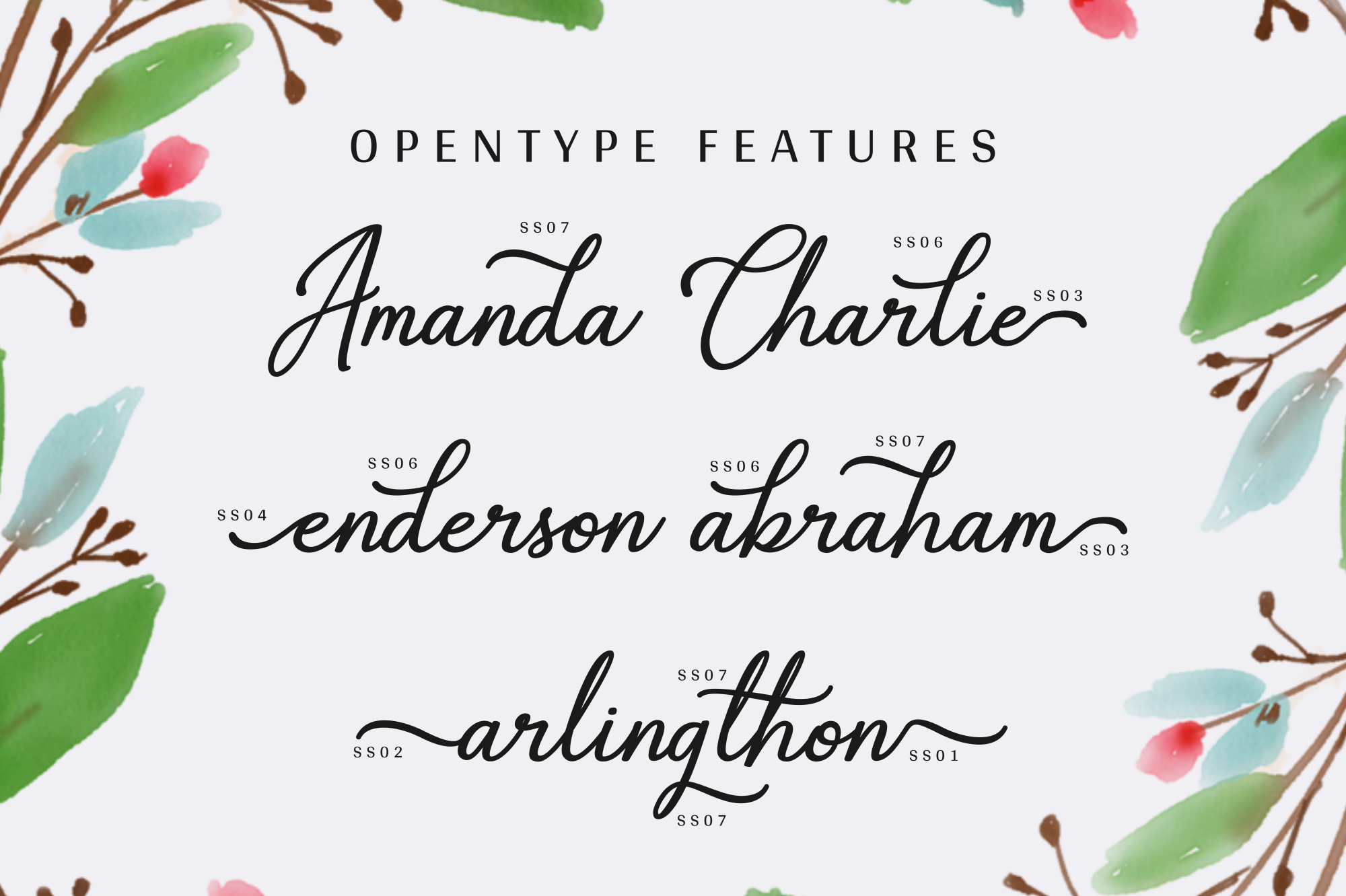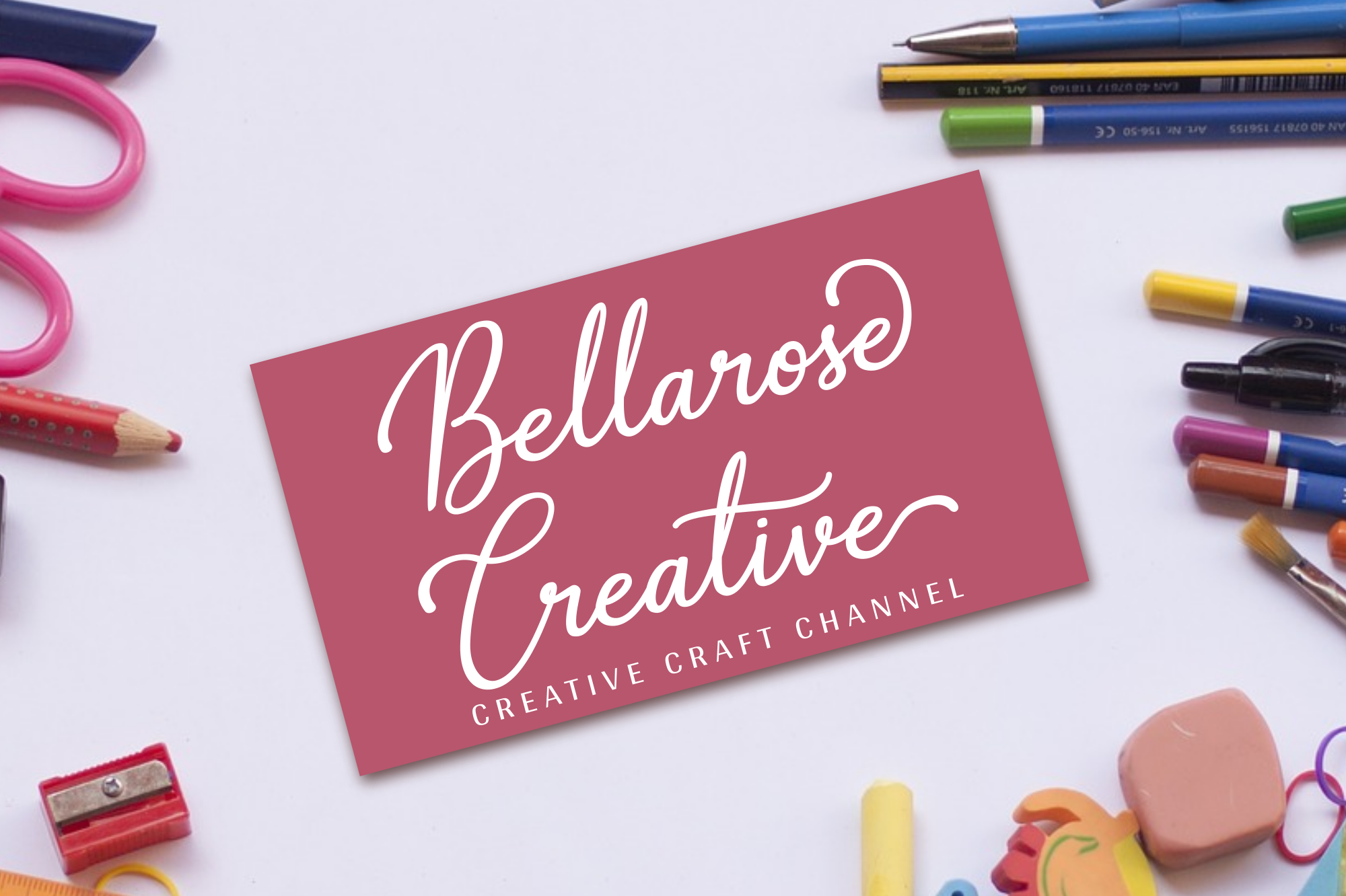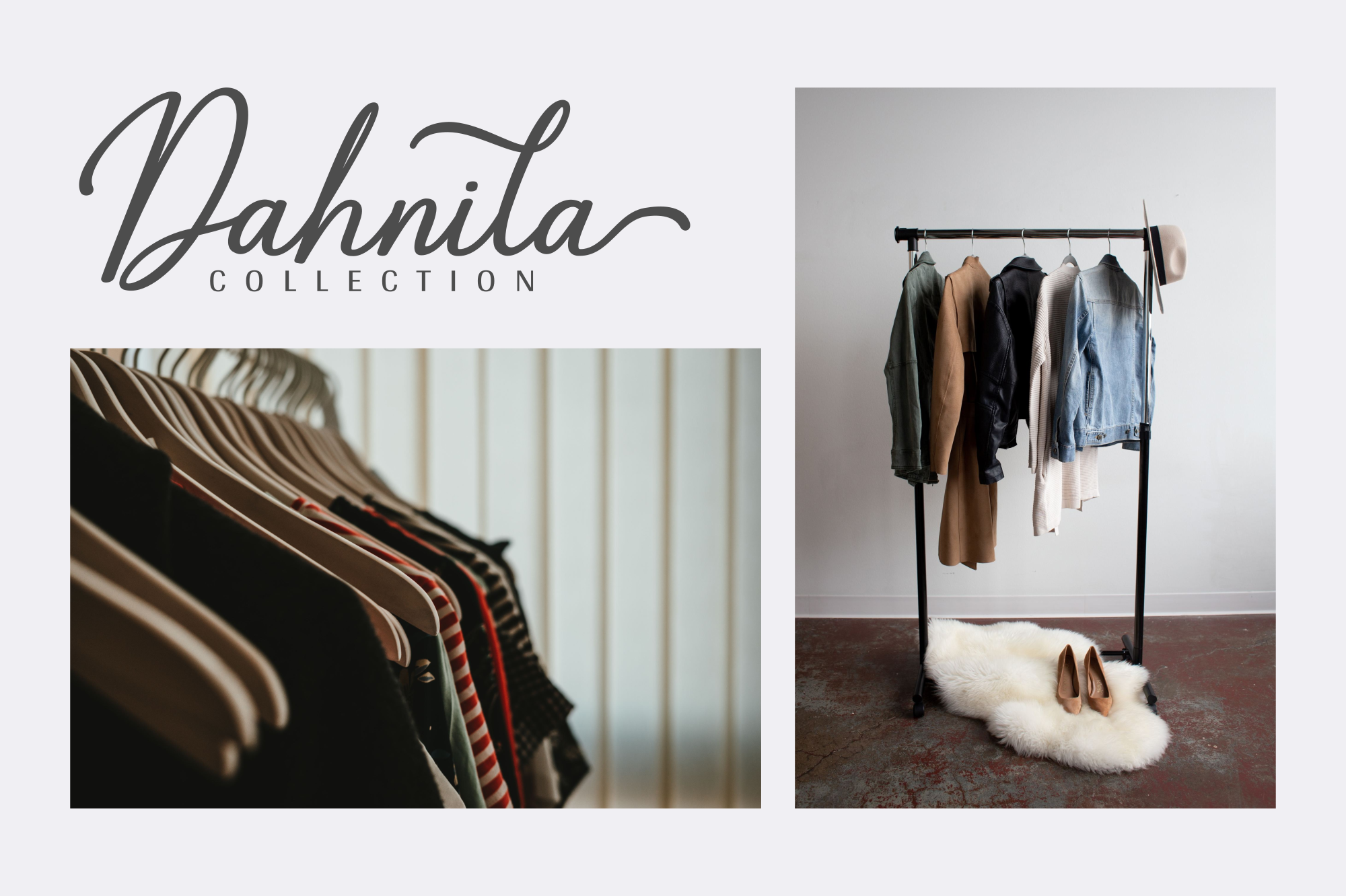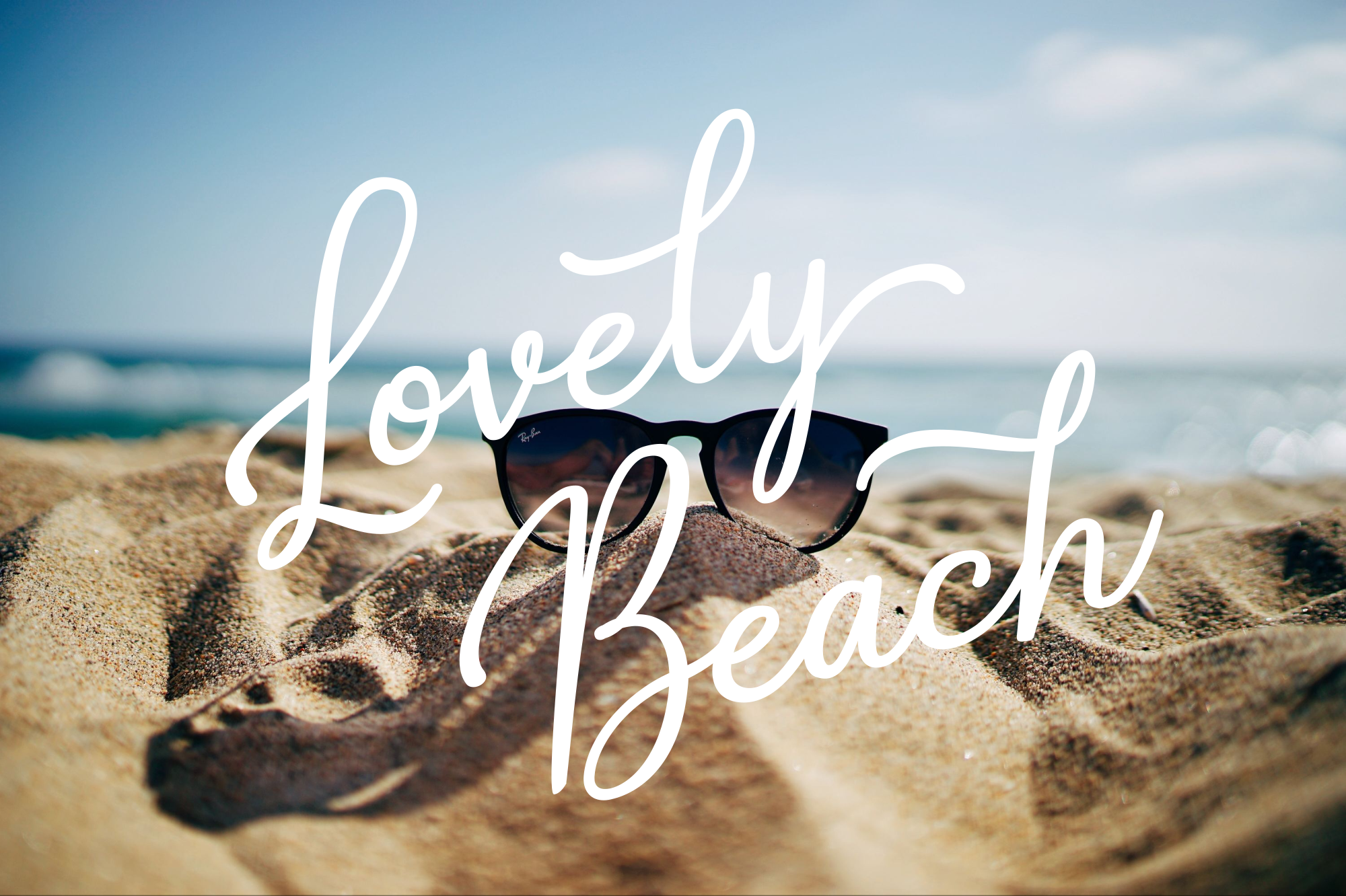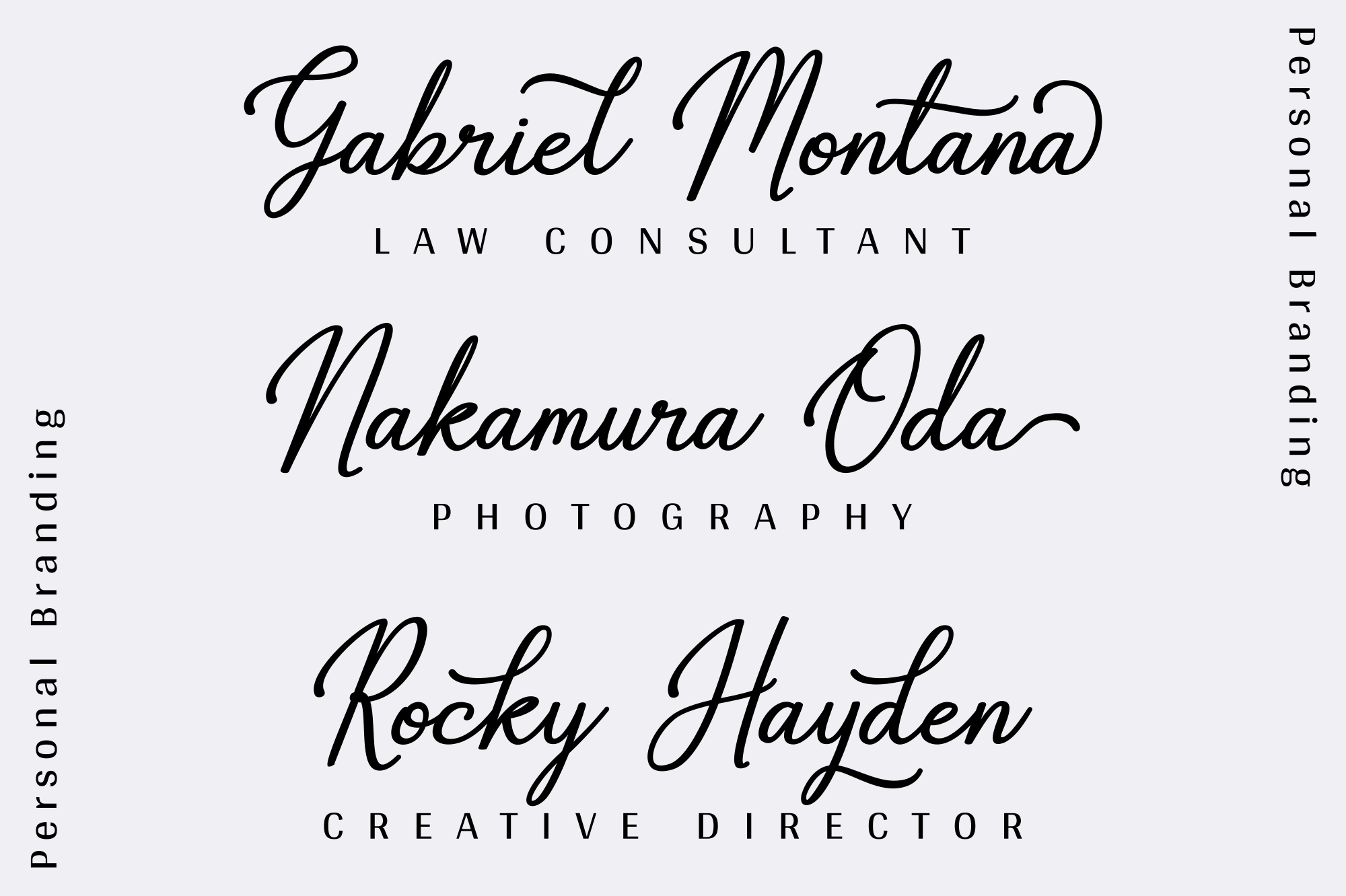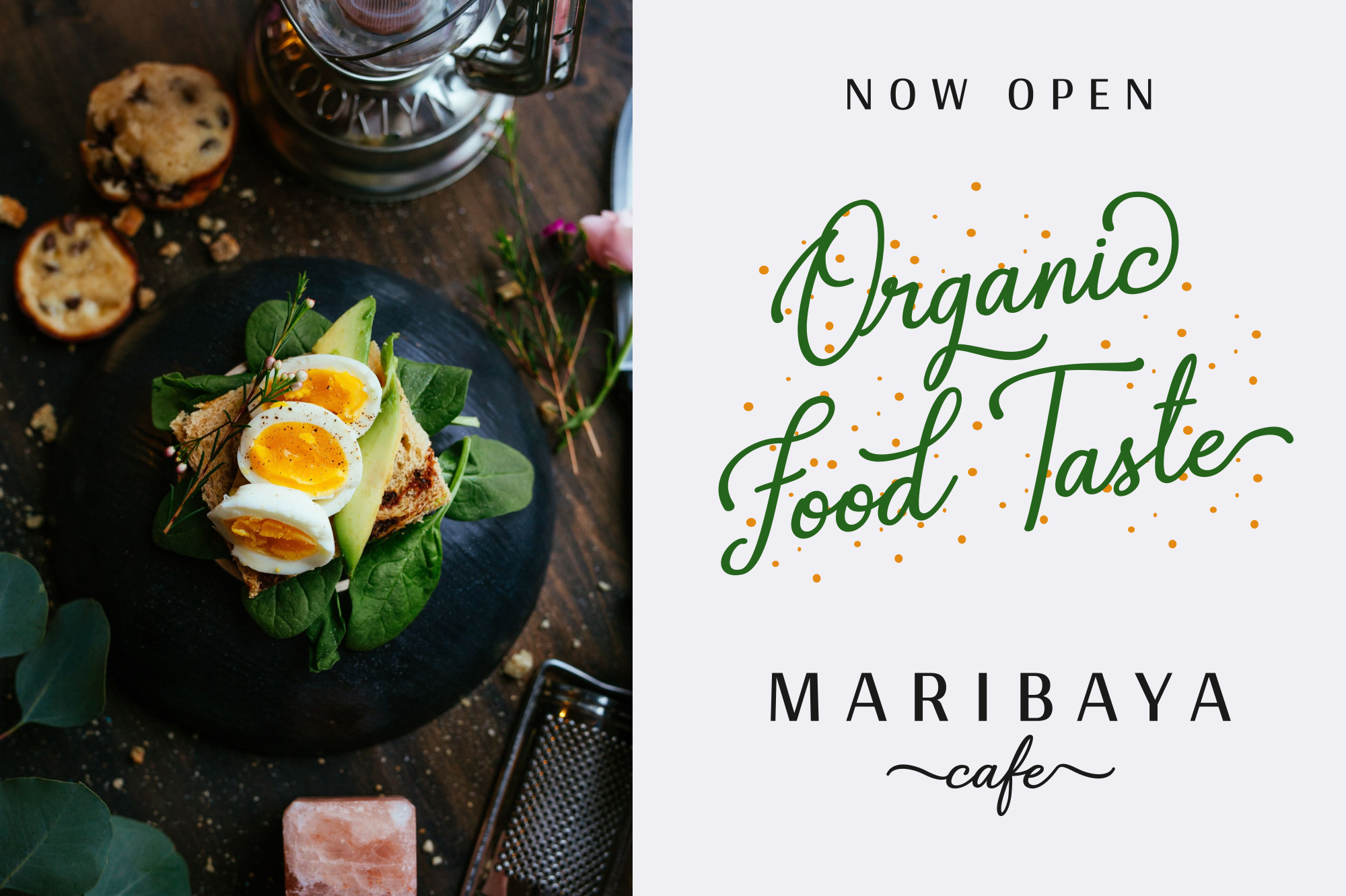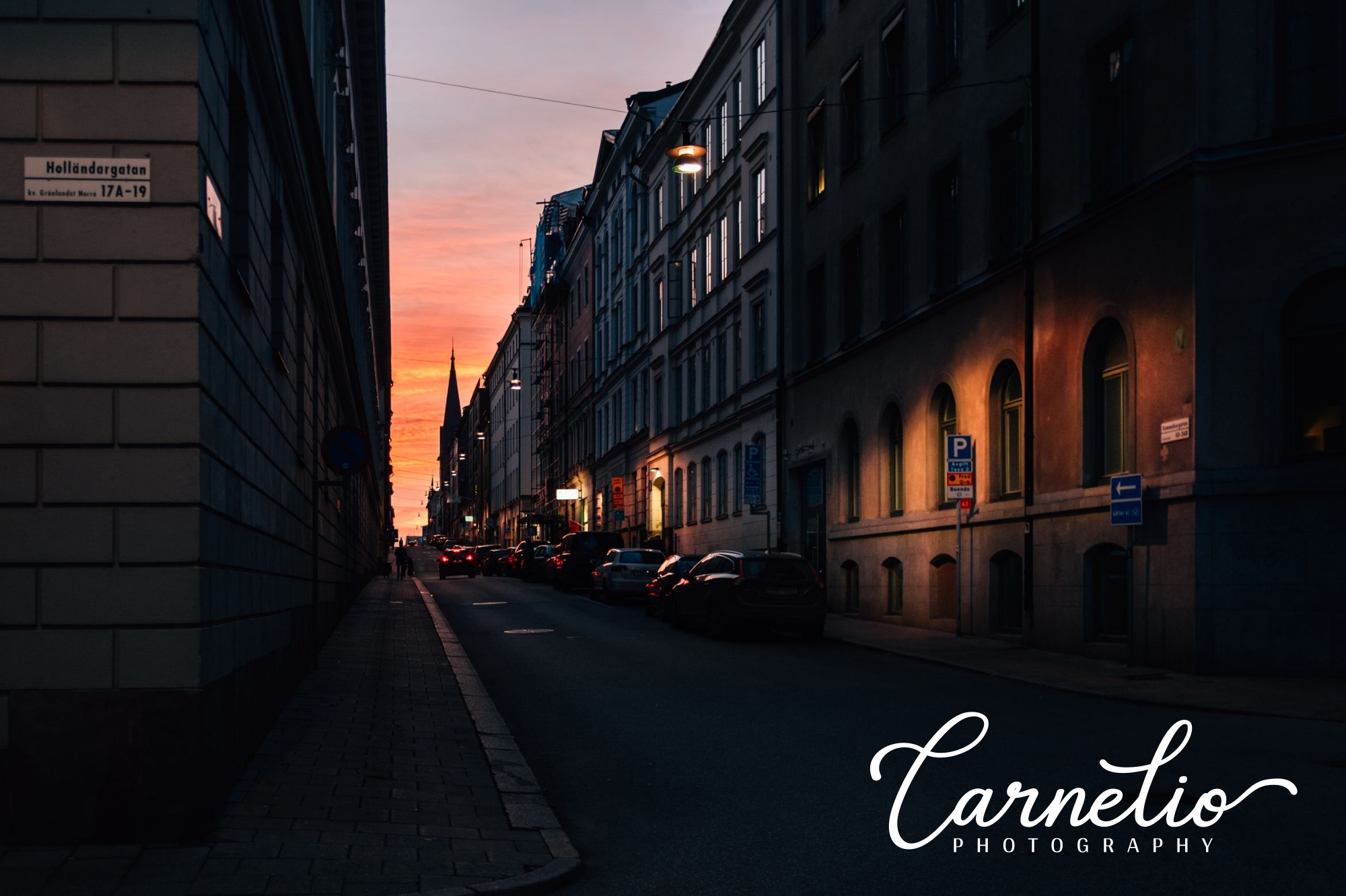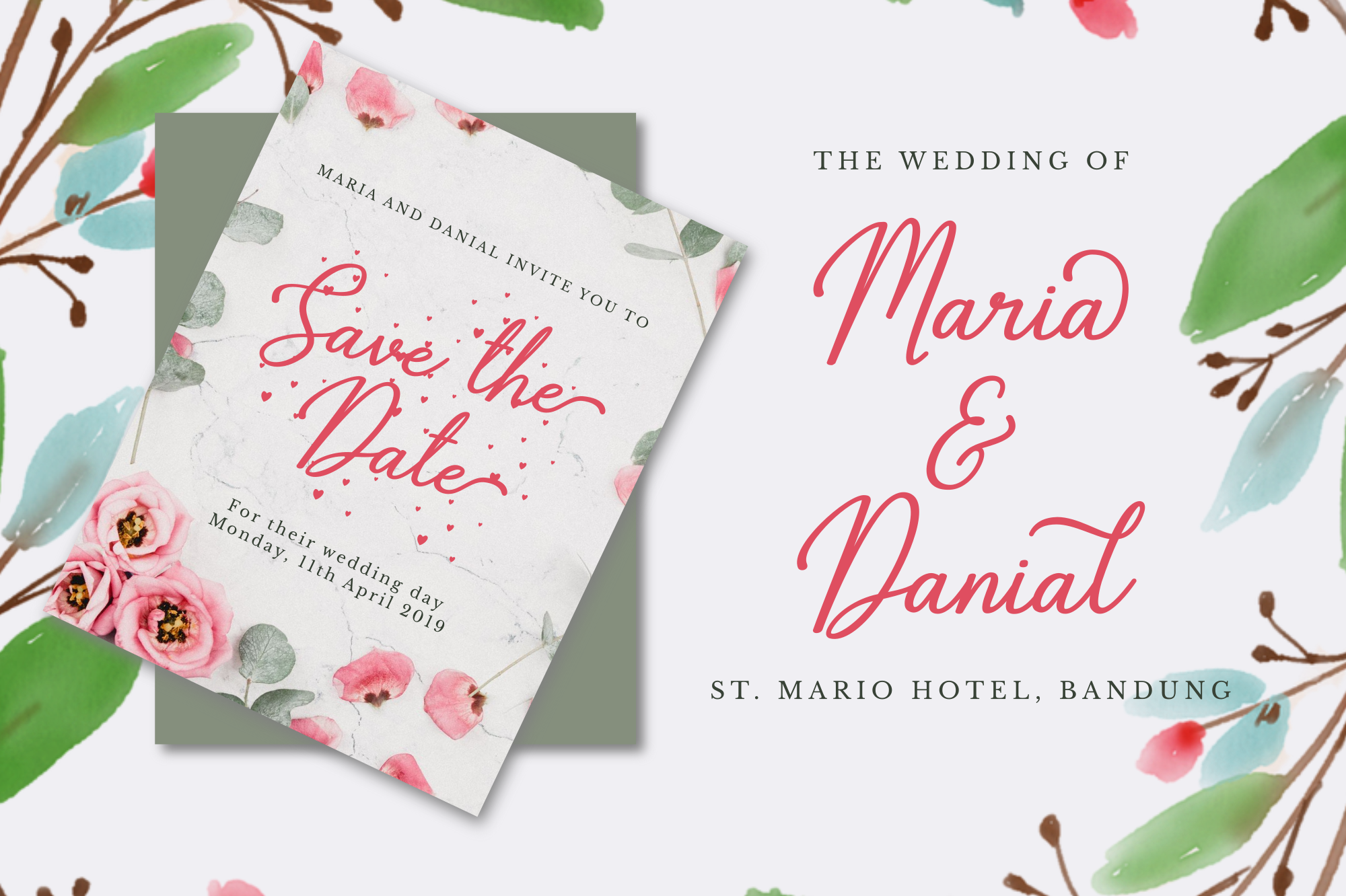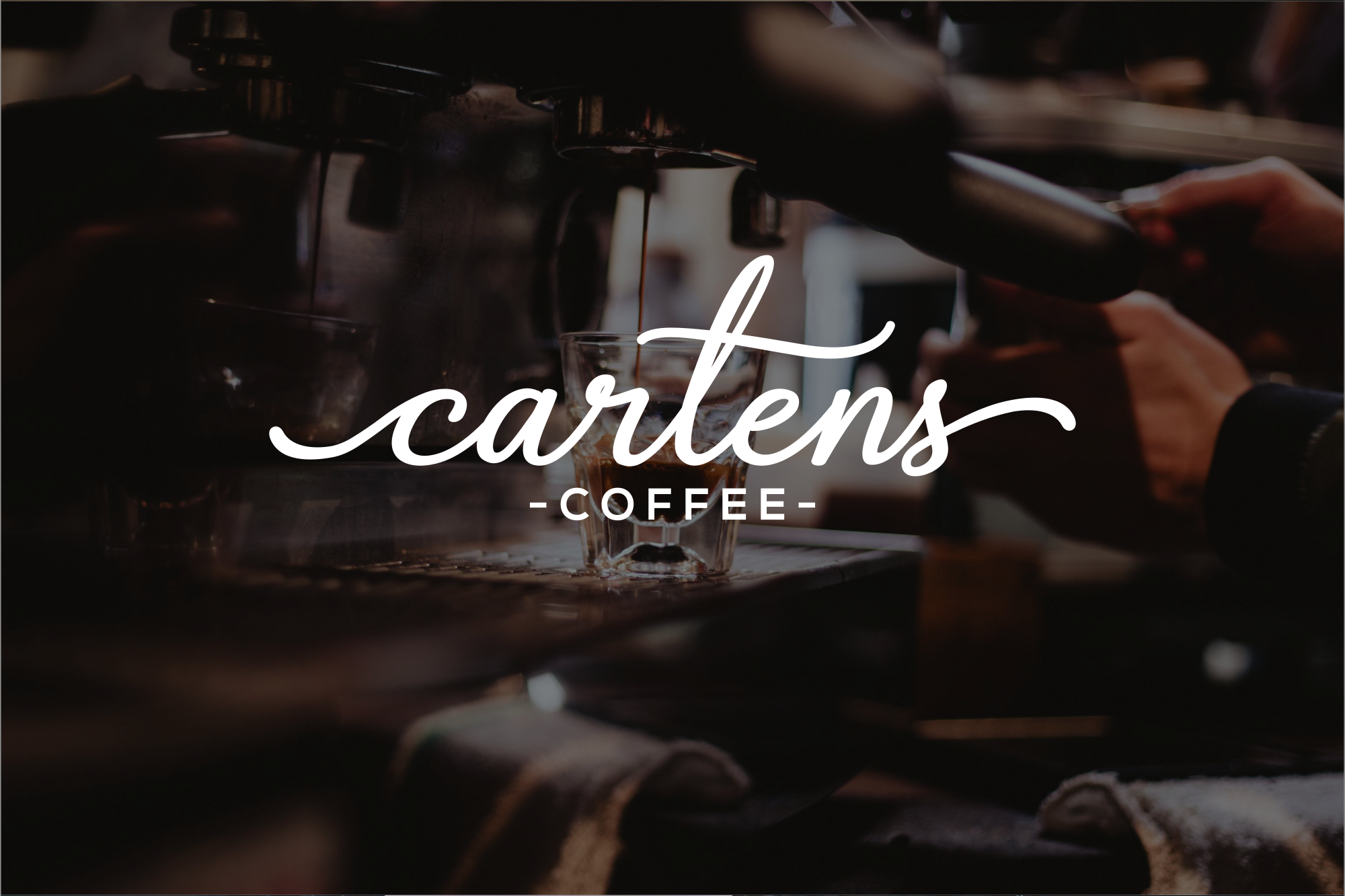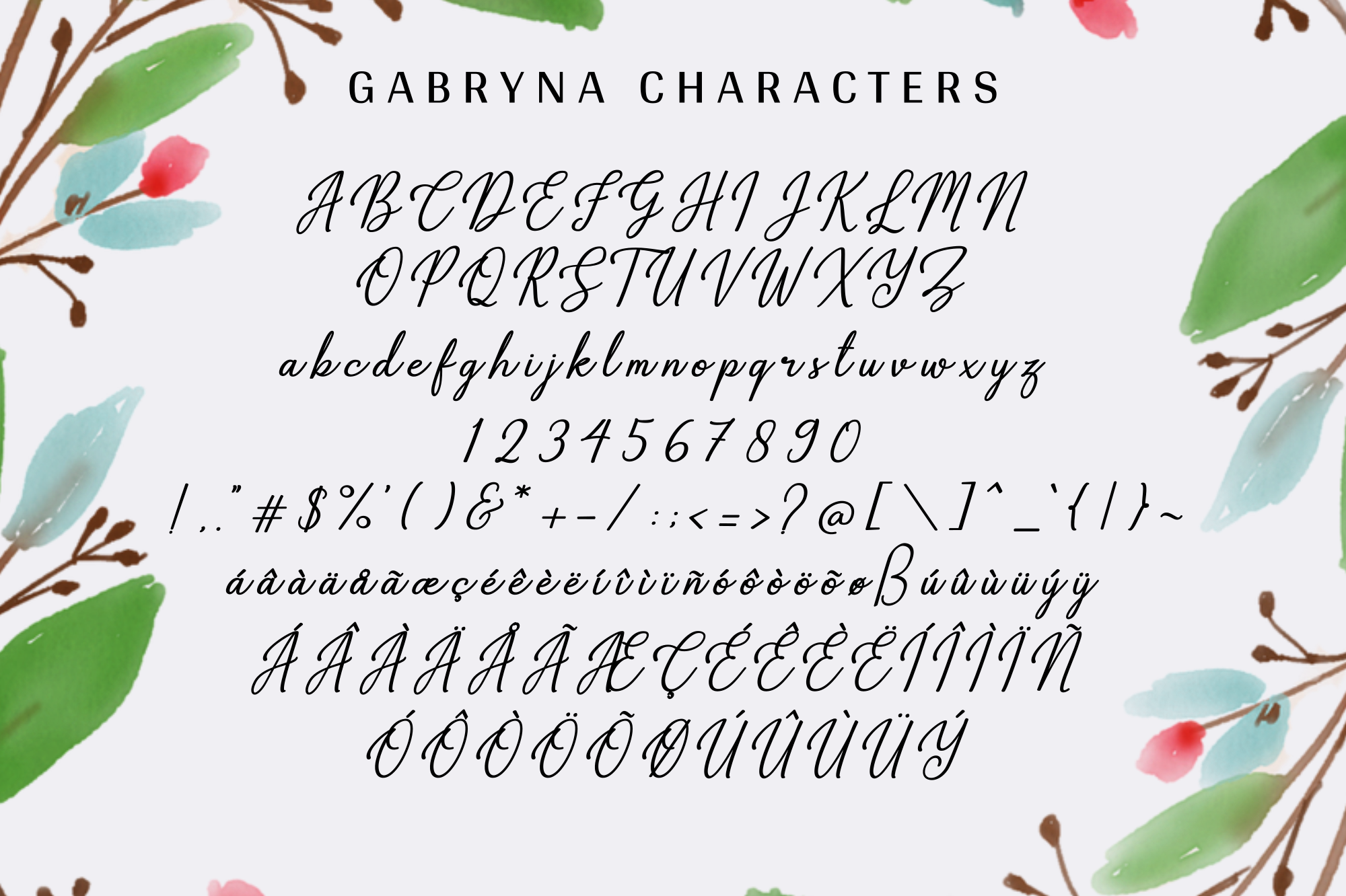
Gabryna - Lovely Script Font
Gabryna is a beautiful handwritten font inspired by classic calligraphy. It brings a sophisticated feel to any design project and is perfect for elegant branding, wedding designs, invitations, quotes, and more.
Gabryna - Lovely Script Font
Elegant branding, wedding designs, invitations, quotes,